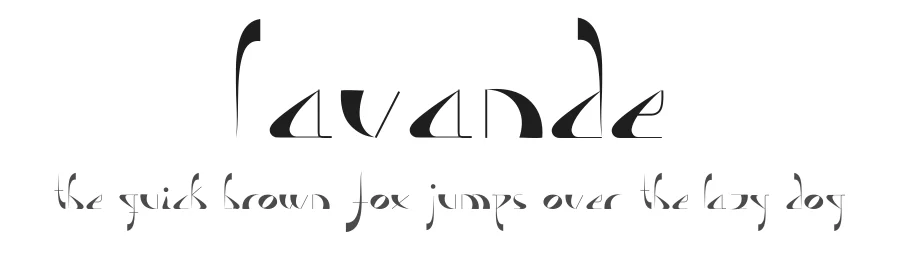
About Petal Font
Petal is a decorative font designed by Pétalla Menezes. It includes 119 glyphs, a regular weight, TTF (TrueType) format, and 109 languages. Petal is free to download; check the license details on this page before commercial use. Decorative fonts like Petal work best for logos, posters, packaging, and standout headlines.
Petal Font is a decorative font that shines as a display or heading face. Pair it with a clean sans-serif or serif font for body text — the contrast creates a clear hierarchy while the two styles stay balanced and easy to read.
Petal Font
Petal Font is a decorative typeface by Pétalla Menezes, ideal for logos, invitations, branding, and creative projects.